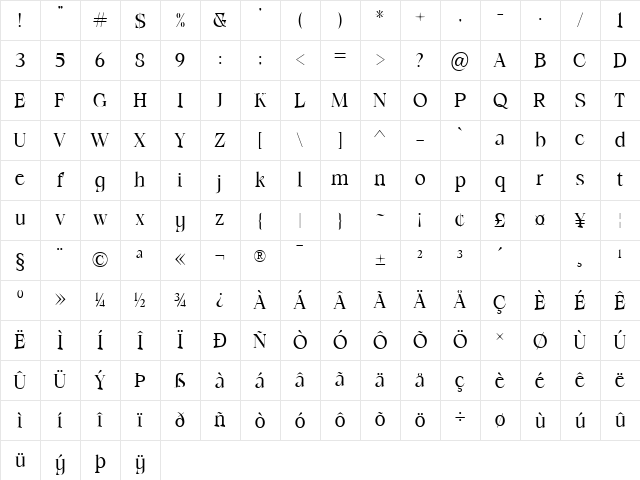
Radilen Aveline is a composed and adaptable typeface that performs quietly and consistently across a wide range of design contexts.
Pro Tip: Use Radilen Aveline in both headline and body roles to test its range before committing to a single application.